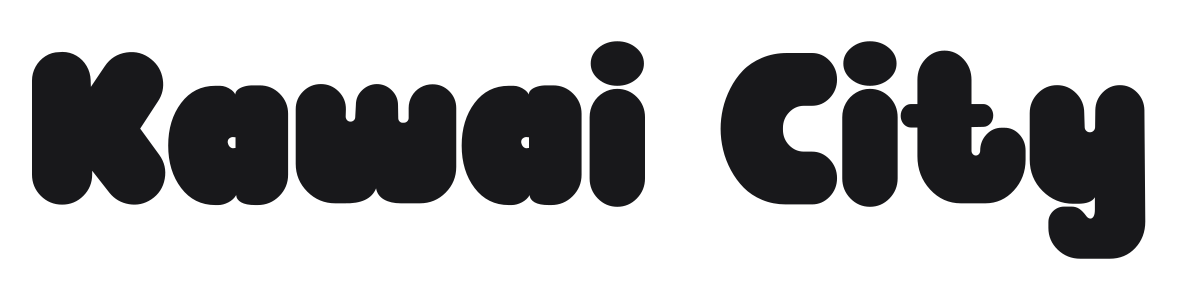
Kawai City
Kawai City is a heavy bubble sans with inflated, pillowy strokes and deeply rounded terminals that give every character a soft, cartoon-like presence. The design draws equally from 1970s groovy typography and contemporary kawaii aesthetics. It hits hard at large sizes and brings immediate warmth and energy to any headline or logo treatment.